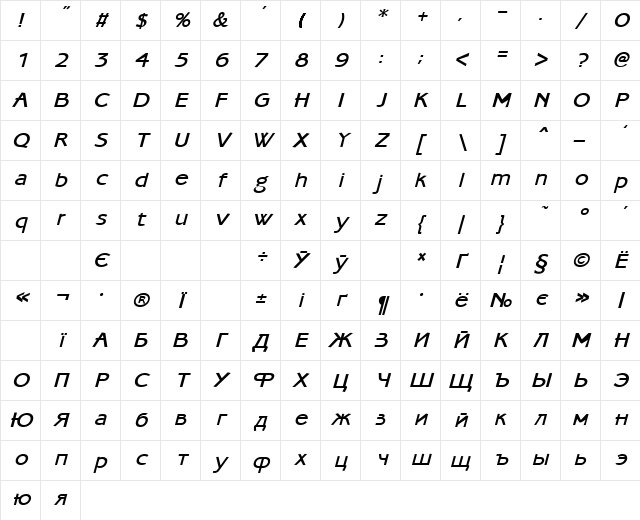
Complete AmbassadoreType Medium-ItalicA glyph index. Displaying only characters natively supported by AmbassadoreType Medium-ItalicA font.
AmbassadoreType is a composed and adaptable typeface that performs quietly and consistently across a wide range of design contexts. The slanted form adds forward momentum and visual energy.